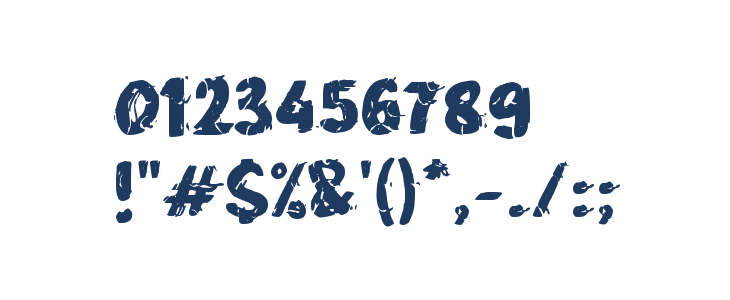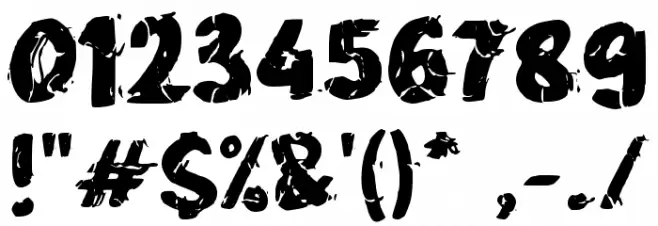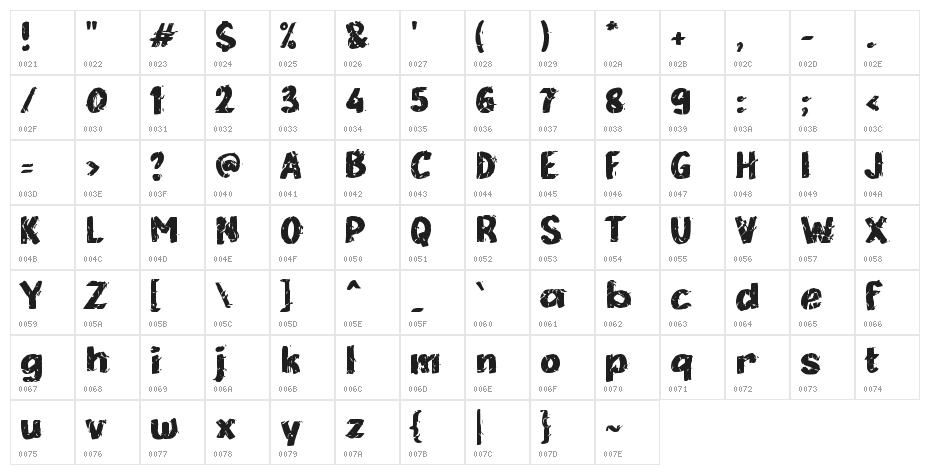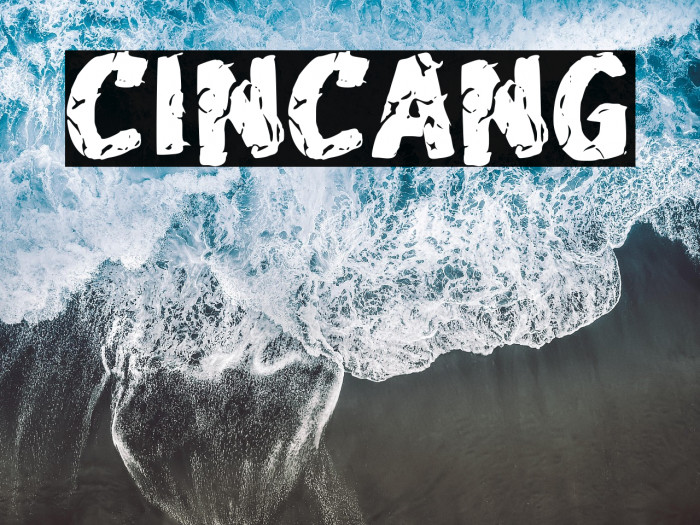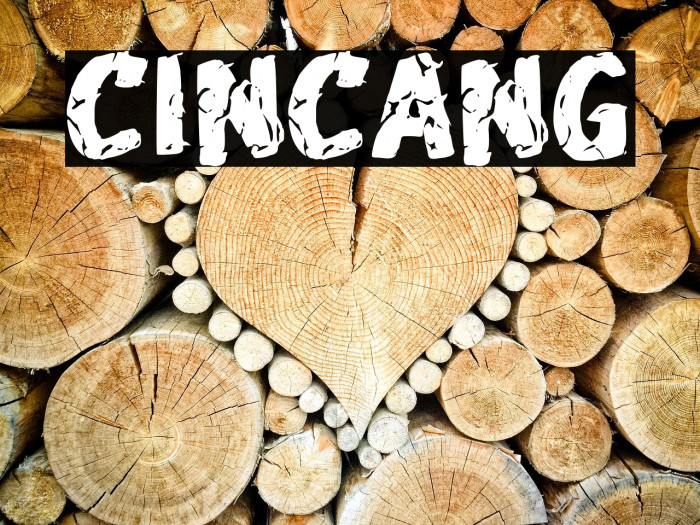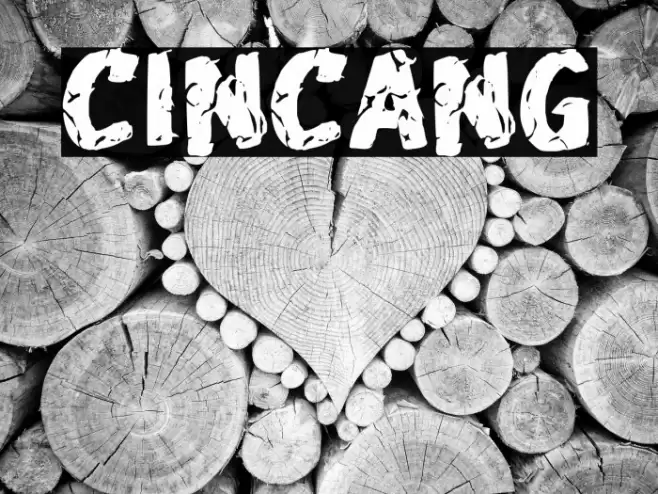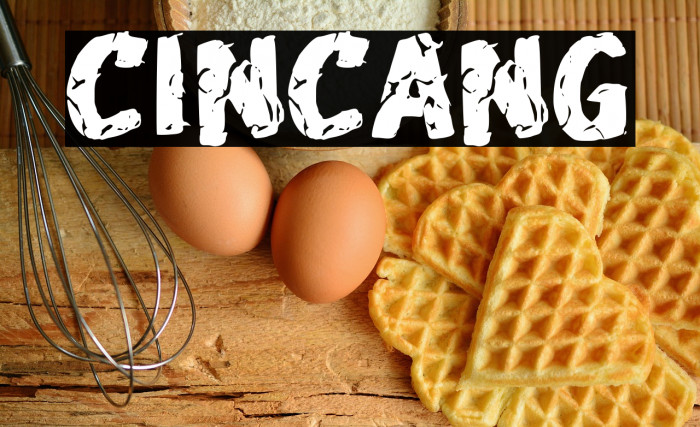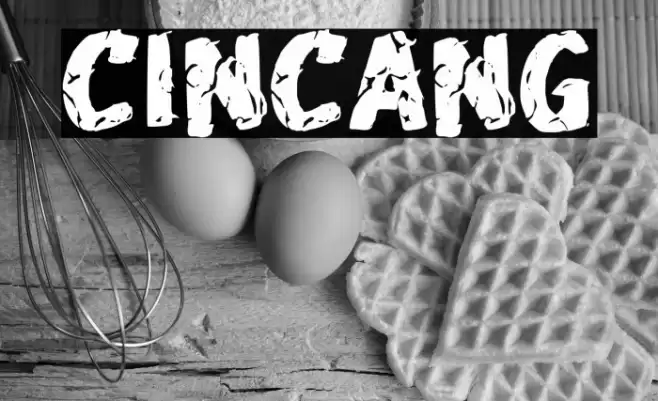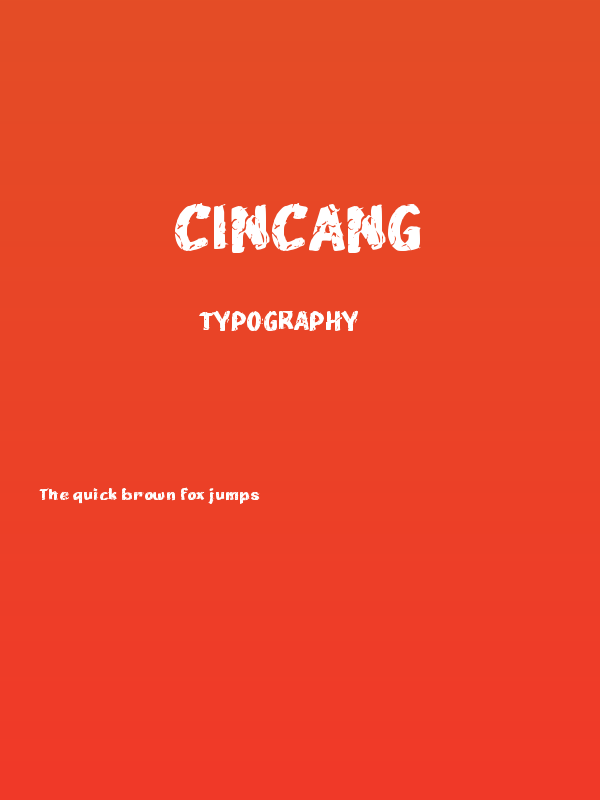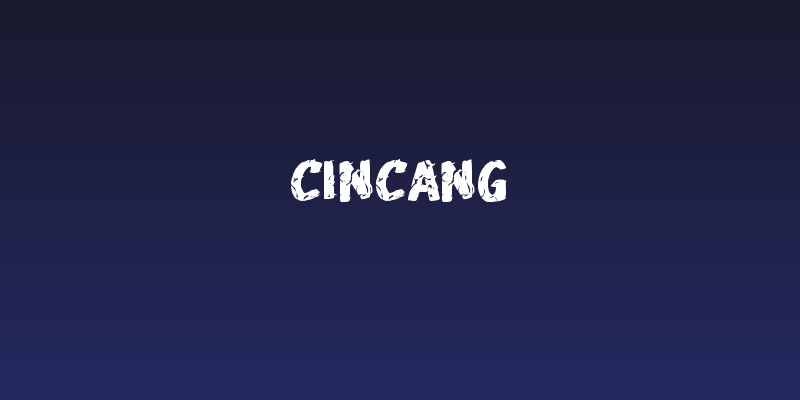
CINCANG Font
CINCANG Description
This font features a bold, distressed style with a rough, textured appearance. Each character appears as if it has been weathered or eroded, giving it a gritty, urban feel. The uppercase and lowercase letters maintain a consistent ruggedness, while the numbers and special characters follow suit with the same worn-out aesthetic. The font's unique design makes it stand out, ideal for projects that require a bold statement or an edgy, artistic touch.
| Overall Style | Urban, Edgy, Artistic |
| Use Case | Headlines, Posters, Logos |
| Proposed Projects | Ideal for album covers, street art designs, posters, and edgy branding projects. |